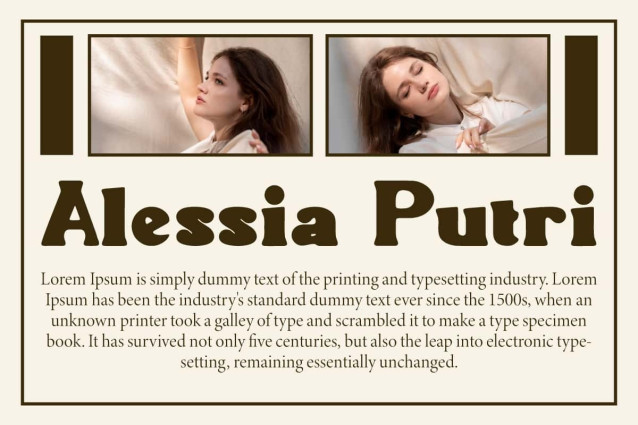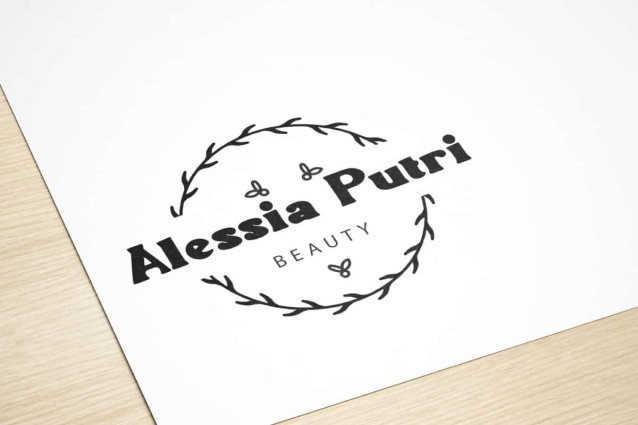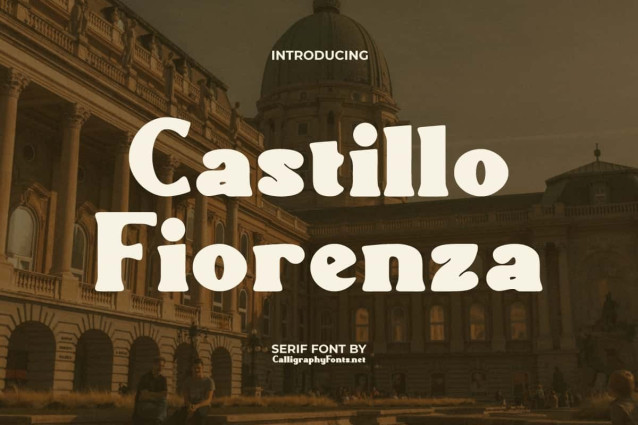
Castillo Fiorenza Font
Castillo Fiorenza Font is a classic retro serif display font. Inspired by the 70s vibes, it is ideal for bringing a timeless aesthetic and nostalgic space to your digital and print compositions. This font can be used for apps, badge, banners, blogs, brand logo, brochure, custom stamp, flyer, headers, heading, mockup, poster, printed materials, product packaging, quotes, social media post, stationery, template, title, websites, and much more.
Castillo Fiorenza Font is perfect for fun vintage background designs. The most iconic typeface of the last century, ideal for making anything stand out. Let your creativity flow without limits! This font can be used for accessories and gifts, boutique, commercial item, coffee shop, event organizer, digital marketing, fashion, film, graphic designer, handicraft, interior design, movie, photography, publisher, restaurant, spa salon, web designer, and much more.
Castillo Fiorenza Font comes with a complete set of Uppercase and Lowercase Basic Characters, Numbers, a large range of Punctuation, and Symbol. It is supported with multilingual characters and ready to use both on Windows machine or Mac with simple installations. It’s tested to work well in the Adobe Apps (Illustrator, Adobe InDesign, Adobe Photoshop) CorelDraw, and others. PUA Encode Characters means you can access all the characters easily – Fully accessible without additional design software.